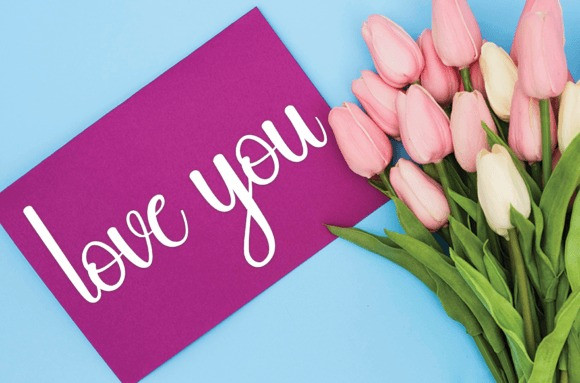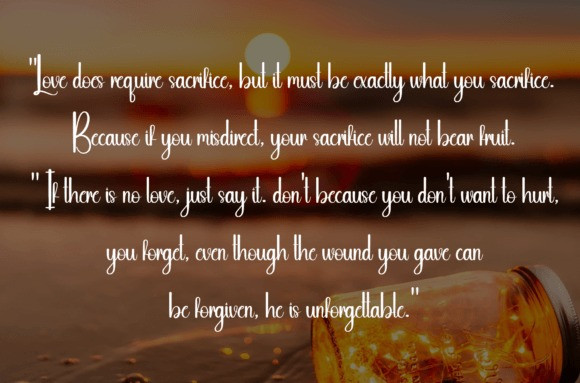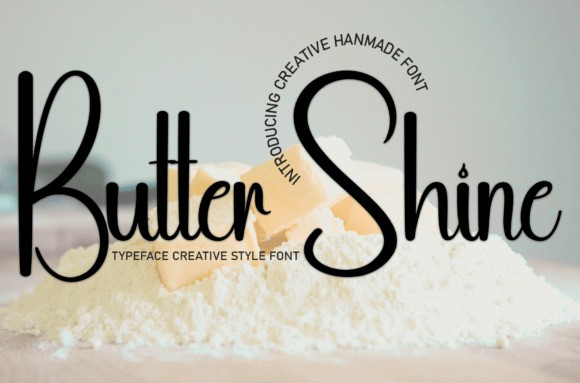
Butter Shine Font
Butter Shine Font is a sweet and friendly handwritten font. Creative and cute, this font is ideal for writing wedding invitations, cards, or any other design that might need a fun touch!